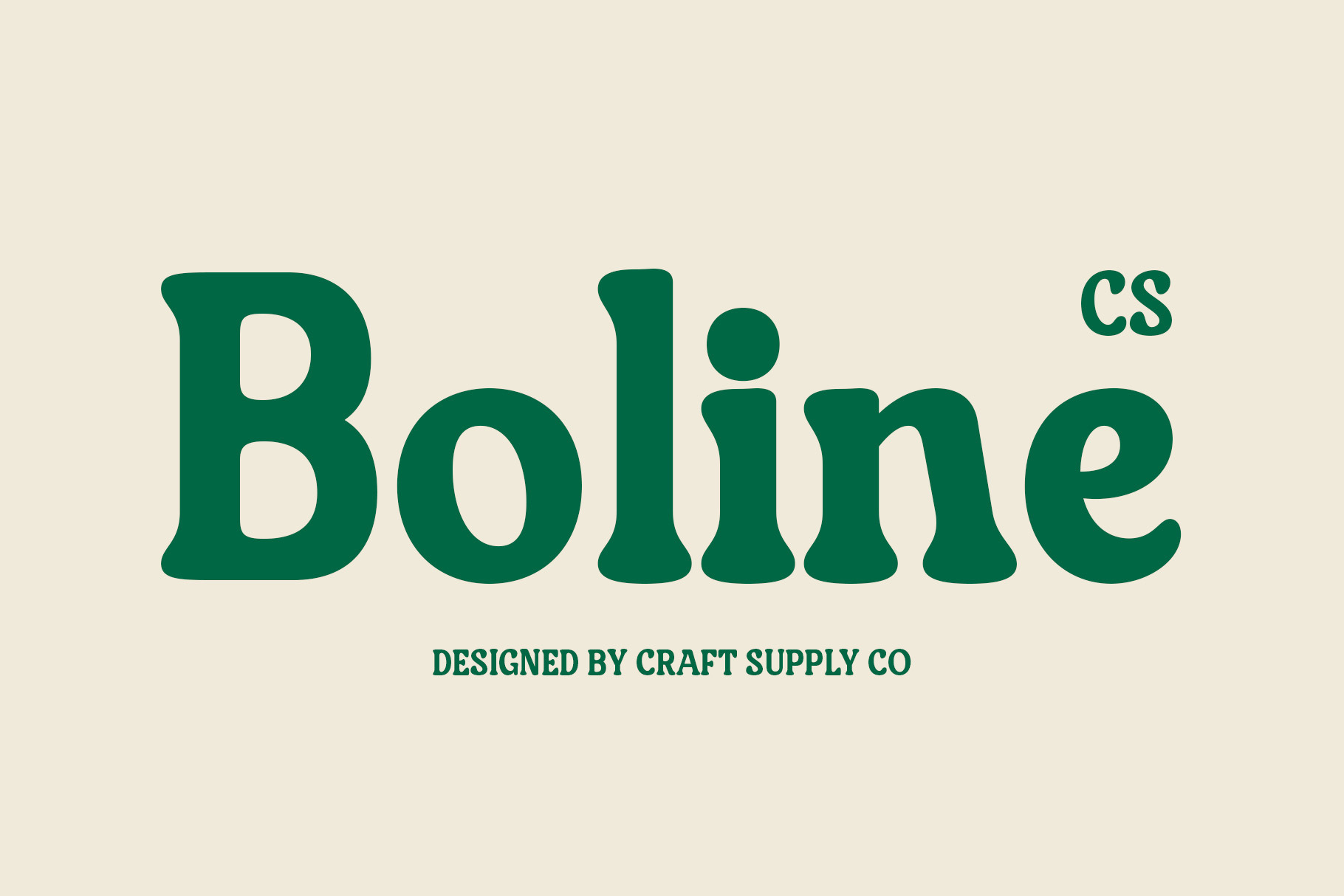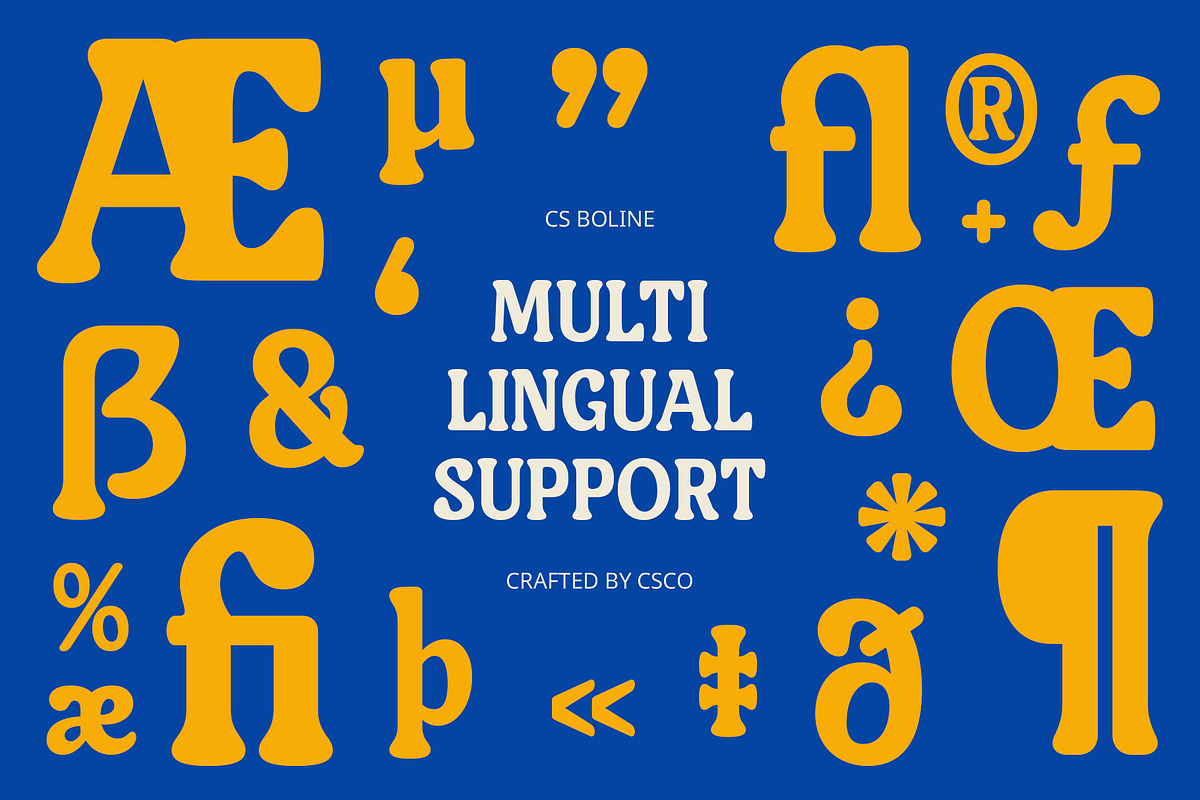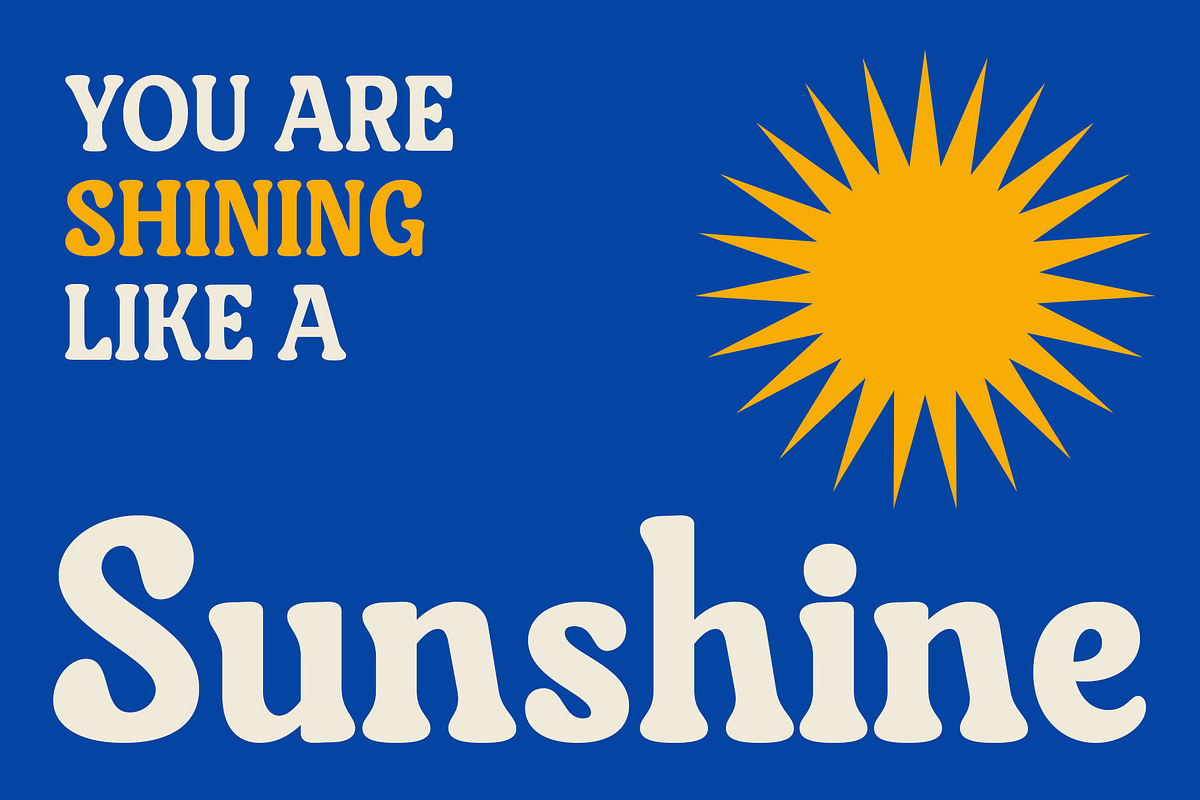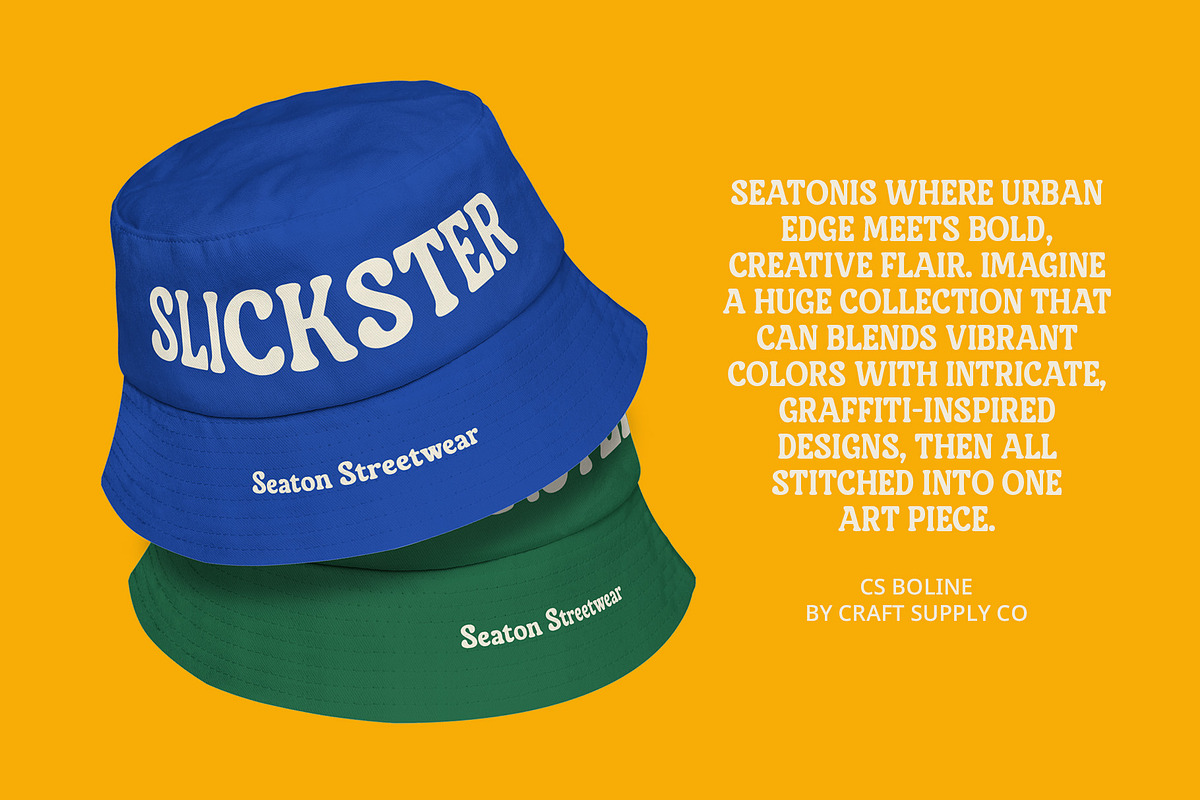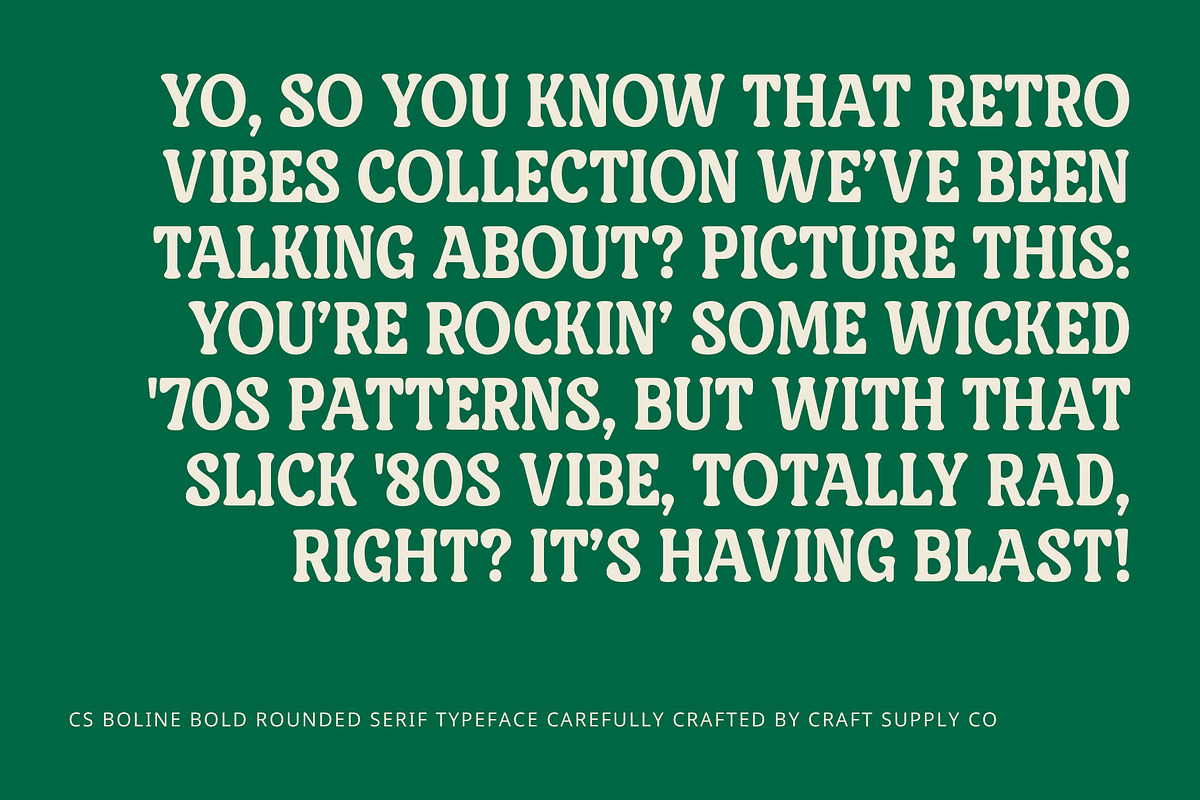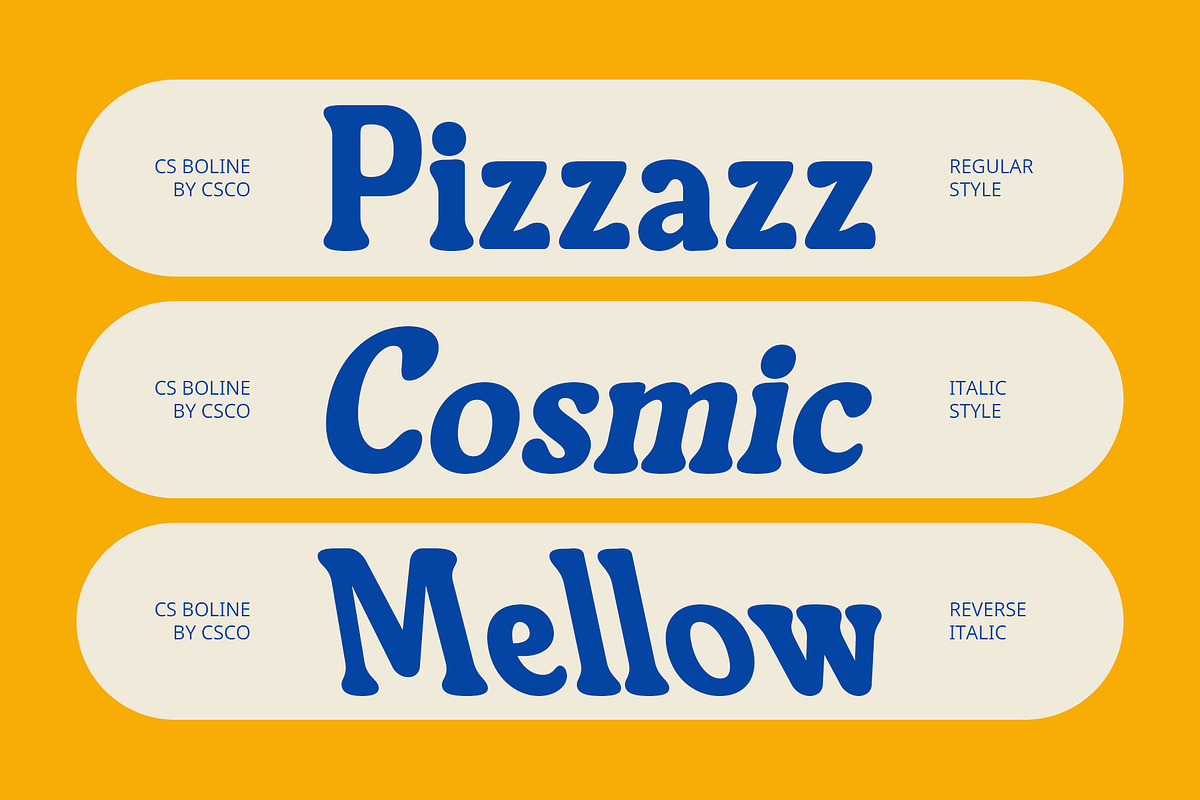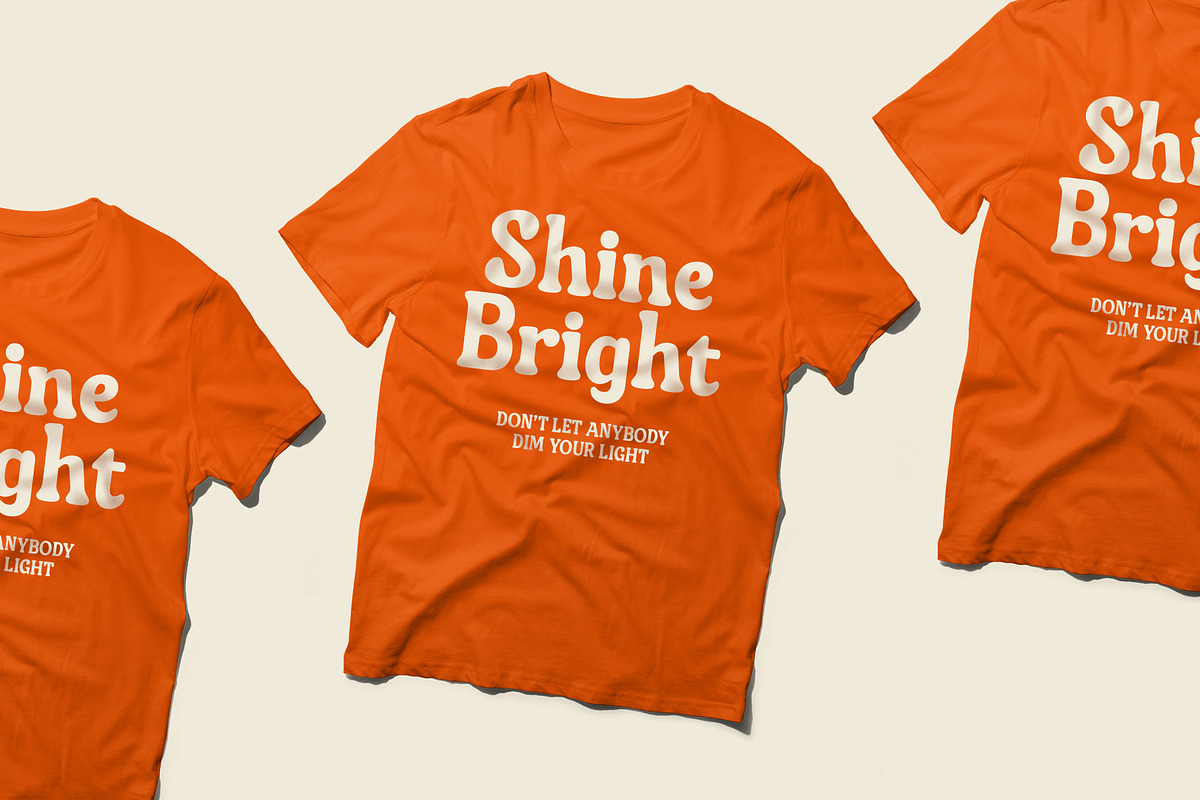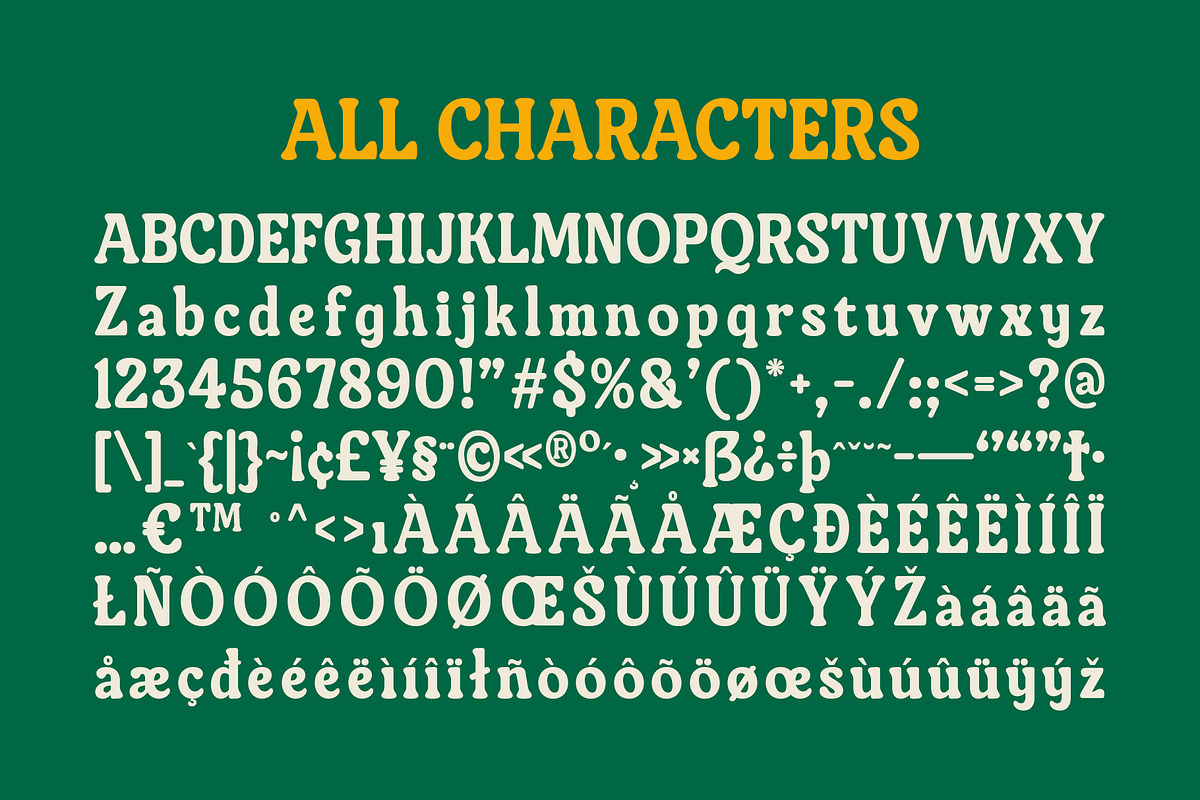
CS Boline – Bold Rounded Font
CS Boline – Bold Rounded Font: Striking Retro Charm with a 90s Vibe
Bold Rounded Serif with 90s Retro Style CS Boline – Bold Rounded Font is a dynamic serif typeface that channels the bold spirit of the 90s with its rounded and thick letterforms. This font’s distinctive design is rich with character and nostalgia, offering a striking visual impact that captures the essence of the retro era.
Classic 90s Aesthetic Embrace the classic and bold vibe of the 90s with CS Boline. Its rounded shapes and robust strokes evoke a sense of nostalgia, making it a standout choice for designs that aim to celebrate and revisit the memorable style of the past decade. The font’s strong and striking appearance ensures that it makes a memorable impression.
Perfect for Retro and Stylish Projects Ideal for vintage posters, eye-catching logos, and distinctive product packaging, CS Boline brings a stylish retro touch to any design project. Its bold and rounded forms enhance the visual appeal, making it perfect for applications that require a blend of nostalgia and modern flair.
Versatile for Bold and Characterful Designs CS Boline’s bold, rounded design offers versatility for various creative applications. Whether you’re crafting a vibrant poster or designing a standout logo, this font provides a powerful retro aesthetic that combines both style and impact, ensuring your projects are both memorable and visually engaging.
- CS Boline Regular
- CS Boline Italic
- CS Boline Reverse Italic